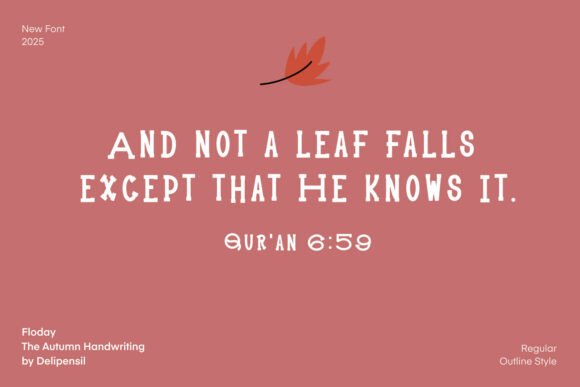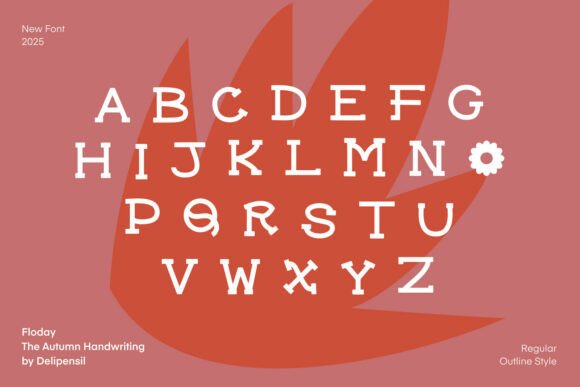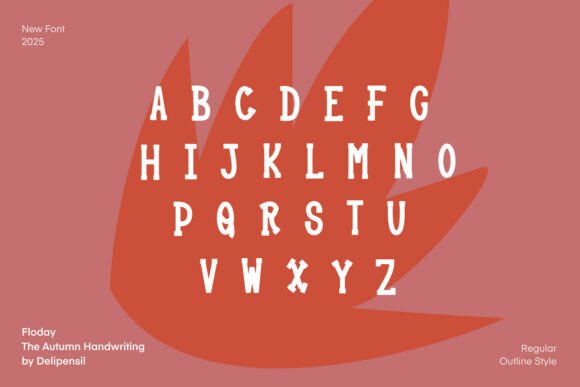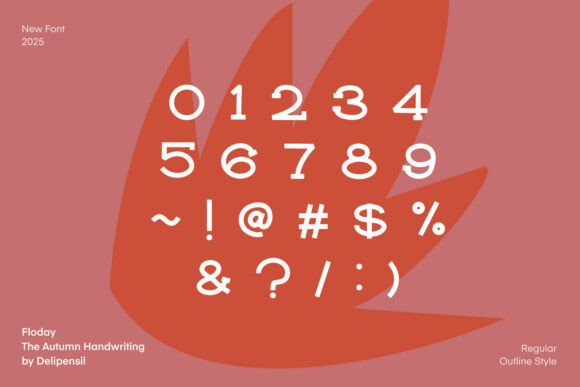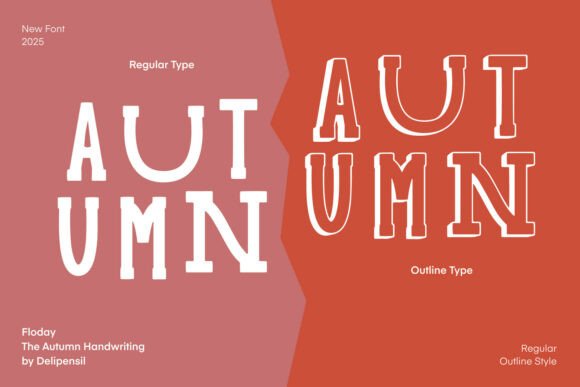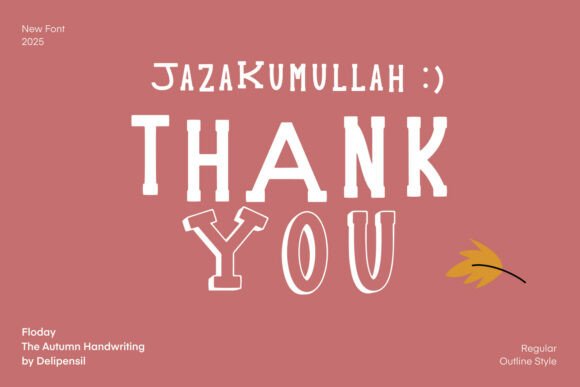
Introducing Floday Font: The Cozy Autumn Display Font
As the seasons change and autumn leaves start to fall, designers and crafters are on the lookout for fonts that capture the warm, cozy essence of this magical time of year. Look no further than Floday Font, a charming display font inspired by the beauty of autumn. With its playful curves, smooth handwritten touches, and inviting feel, Floday is perfect for designs that need both personality and seasonal elegance.
The Inspiration Behind Floday
Floday Font is a loving tribute to the cozy beauty of autumn. The font’s creator was inspired by the soft breezes, gentle calm, and vibrant colors of the season. The result is a font that embodies the warmth and comfort of autumn, making it ideal for designs that evoke a sense of nostalgia and coziness.
Key Features of Floday Font
So, what makes Floday Font so special? Here are just a few of its key features:
- Uppercase A–Z and Lowercase a–z: Floday Font includes a full set of uppercase and lowercase letters, making it perfect for a wide range of design projects.
- Numbers & punctuation: In addition to letters, Floday Font also includes numbers and punctuation marks, giving you everything you need to create beautiful, cohesive designs.
- Smooth, clean strokes: Floday Font features smooth, clean strokes that are easy on the eyes. This makes it perfect for designs that need to be both elegant and easy to read.
- Autumn-inspired handwritten style: Floday Font’s autumn-inspired handwritten style gives it a unique, personal touch that’s perfect for designs that need a bit of personality.
- Easy to read and beautifully balanced: Despite its playful curves and smooth handwritten touches, Floday Font is surprisingly easy to read. This makes it perfect for designs that need to be both beautiful and functional.
Floday Font is a versatile font that’s perfect for a wide range of design projects. Here are just a few ideas to get you started:
- Branding: Use Floday Font to create beautiful, cohesive branding that captures the essence of your business or product.
- Packaging: Add a touch of autumn charm to your packaging with Floday Font. Perfect for seasonal products or limited-edition releases.
- Social media quotes: Use Floday Font to create inspiring, seasonal social media quotes that will engage your followers and add a touch of personality to your feed.
- Home décor prints: Create beautiful, autumn-inspired home décor prints with Floday Font. Perfect for seasonal decorating or as a unique gift.
- Festive fall invitations: Use Floday Font to create beautiful, seasonal invitations for fall events, parties, or gatherings.
Why Choose Floday Font?
So, why choose Floday Font for your design projects? Here are just a few reasons:
- Unique and eye-catching: Floday Font is a unique and eye-catching font that’s sure to grab attention.
- Easy to use: With its smooth, clean strokes and autumn-inspired handwritten style, Floday Font is easy to use and works well in a wide range of design projects.
- Seasonal charm: Floday Font captures the essence of autumn, making it perfect for seasonal designs and projects.
- High-quality design: Floday Font is a high-quality font designed with care and attention to detail.
Floday Font is a charming display font that’s perfect for designers and crafters who love aesthetic seasonal themes. With its playful curves, smooth handwritten touches, and inviting feel, Floday Font brings a comforting autumn vibe to every project. Whether you’re creating branding, packaging, social media quotes, home décor prints, or festive fall invitations, Floday Font is the perfect choice. So why wait? Download Floday Font today and start creating beautiful, seasonal designs that capture the essence of autumn.